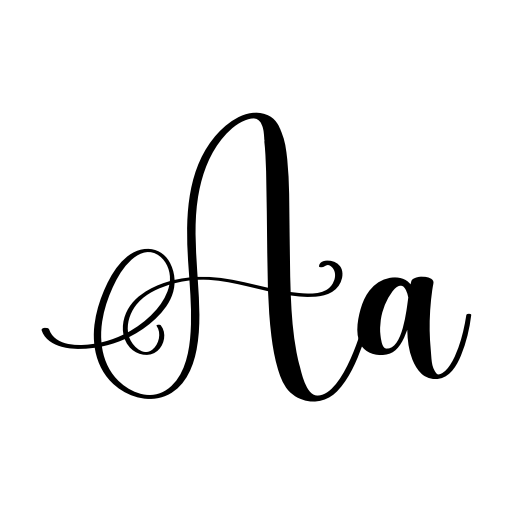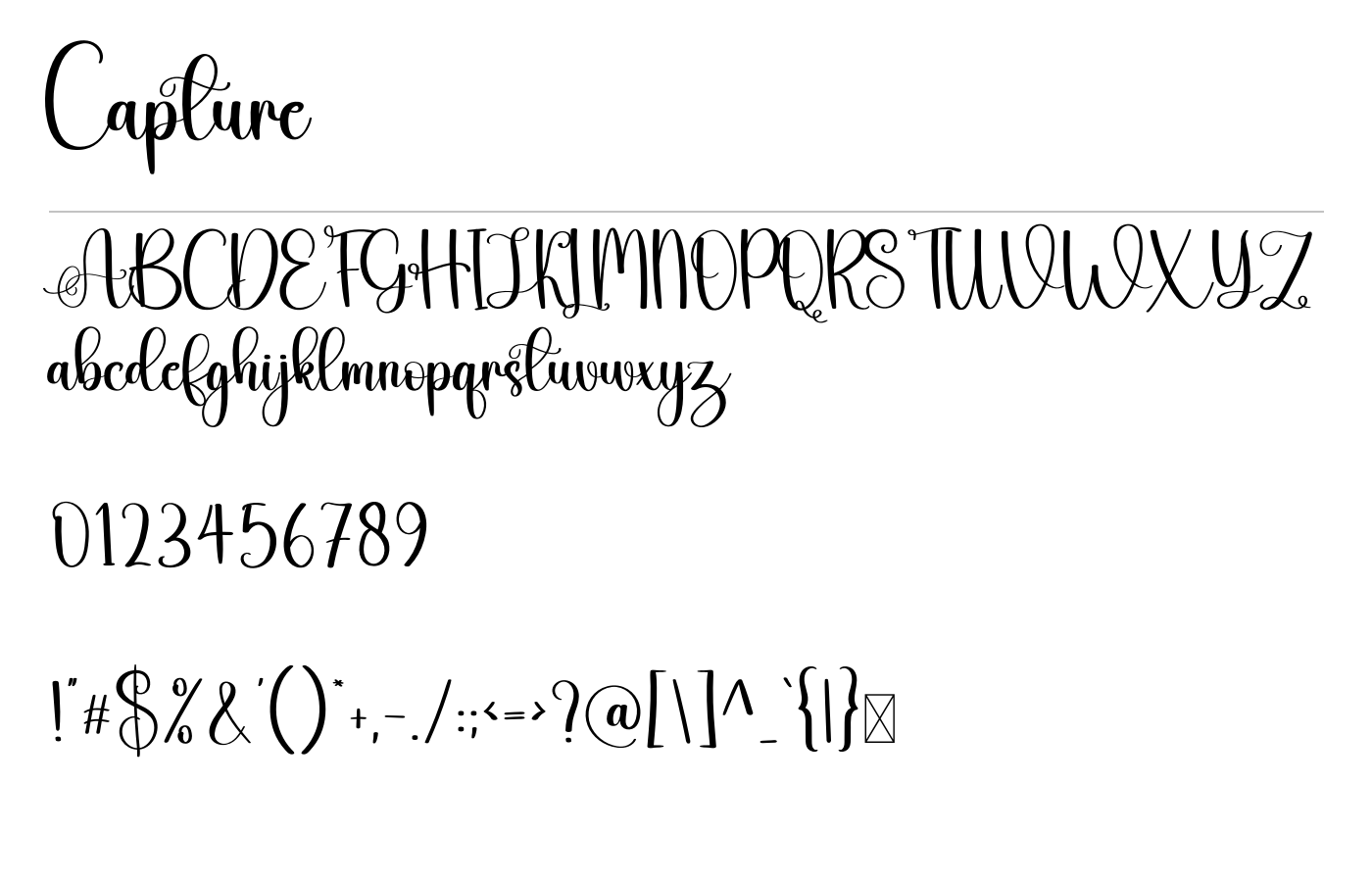
Capture is a playful and elegant script font with a lively, handwritten feel. Its tall, slender letterforms feature graceful swashes and flourishes, giving it a charming and whimsical personality that works beautifully for invitations, logos, and feminine branding. This font shines in creative projects where a touch of delicate flair and warmth is desired.
Capture Font
About Capture Font